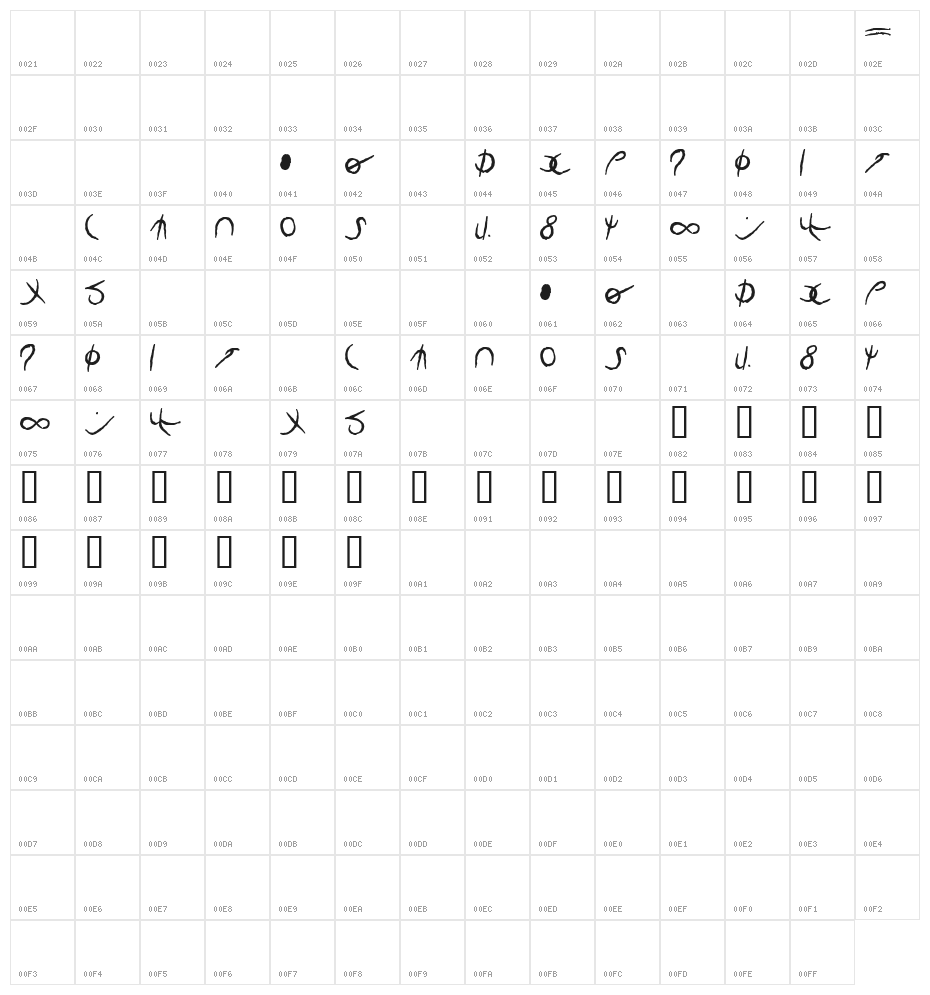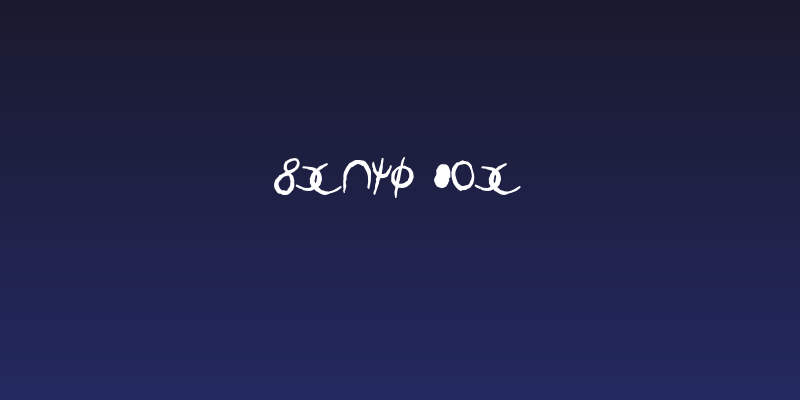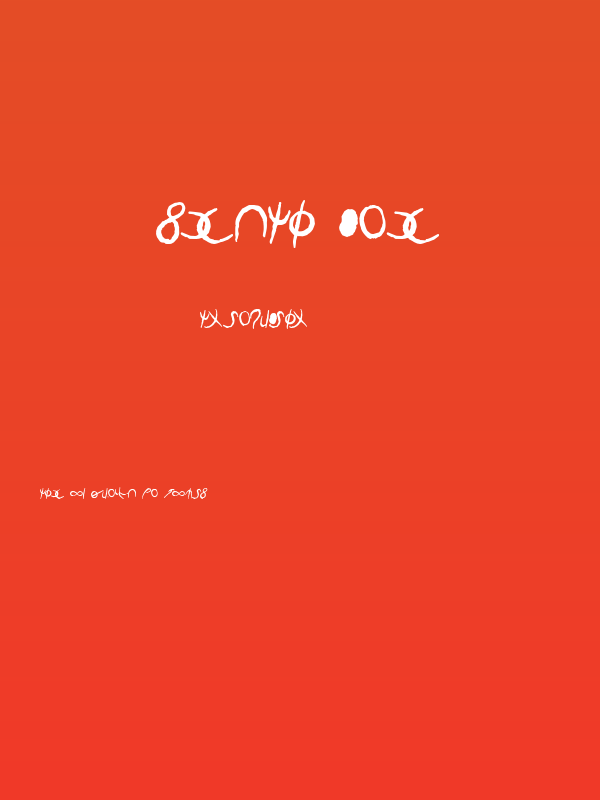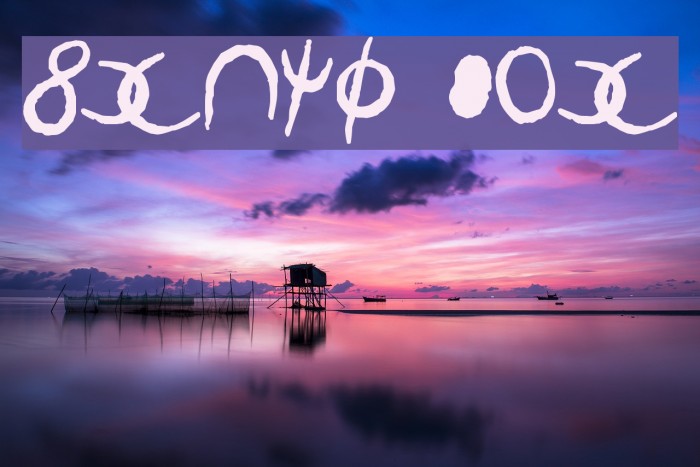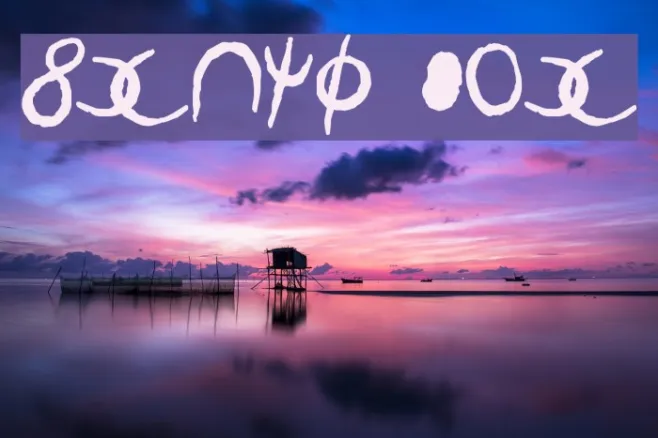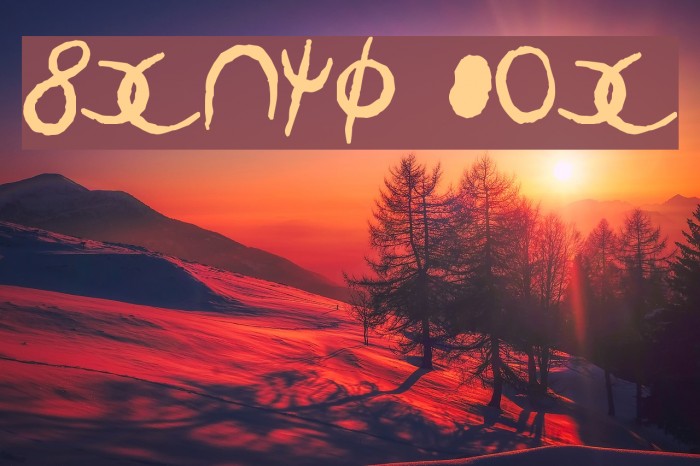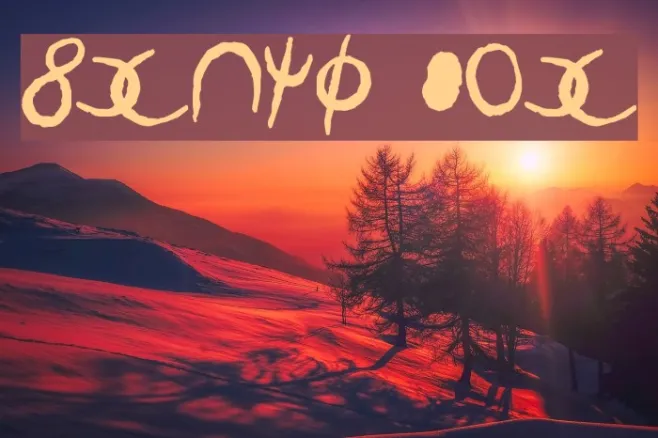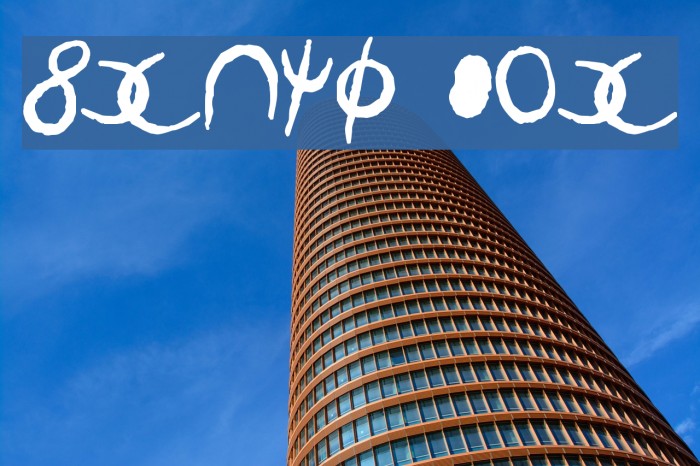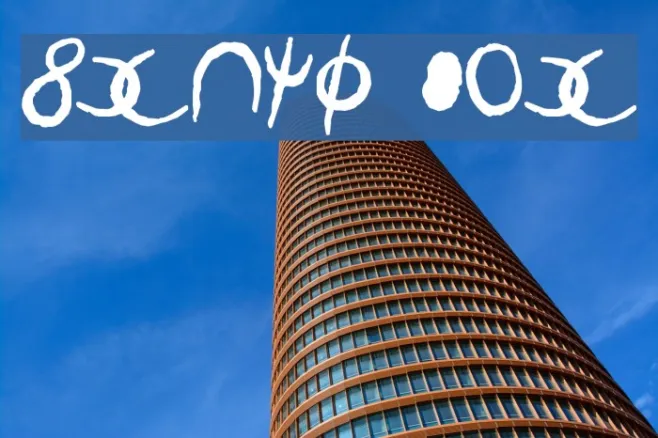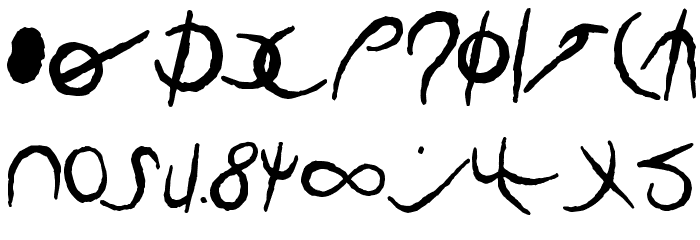
Senth AOE Font
Senth AOE Description
This font features a highly decorative and abstract style, characterized by its unique and artistic letterforms. Each character is crafted with a sense of fluidity and motion, incorporating swirling lines and exaggerated curves. The design is reminiscent of calligraphic strokes, yet it maintains a modern and avant-garde aesthetic. The characters are not immediately recognizable as traditional letters, giving the font an enigmatic and mysterious quality. This artistic approach makes it suitable for creative and unconventional design projects.
| Use Case | Logos, Artistic designs, Posters |
| Proposed Projects | Ideal for artistic projects, album covers, posters, and any design requiring a unique and creative touch. |